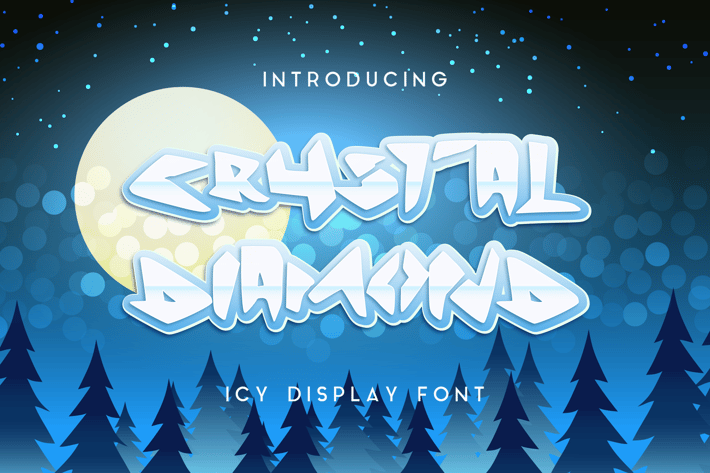
Crystal Diamond Icy Display Font
Crystal Diamond Icy Display Font, is our new font and suitable for mockup or any work.
Great for
Sticker, Invitation Card, Brochure, etc.